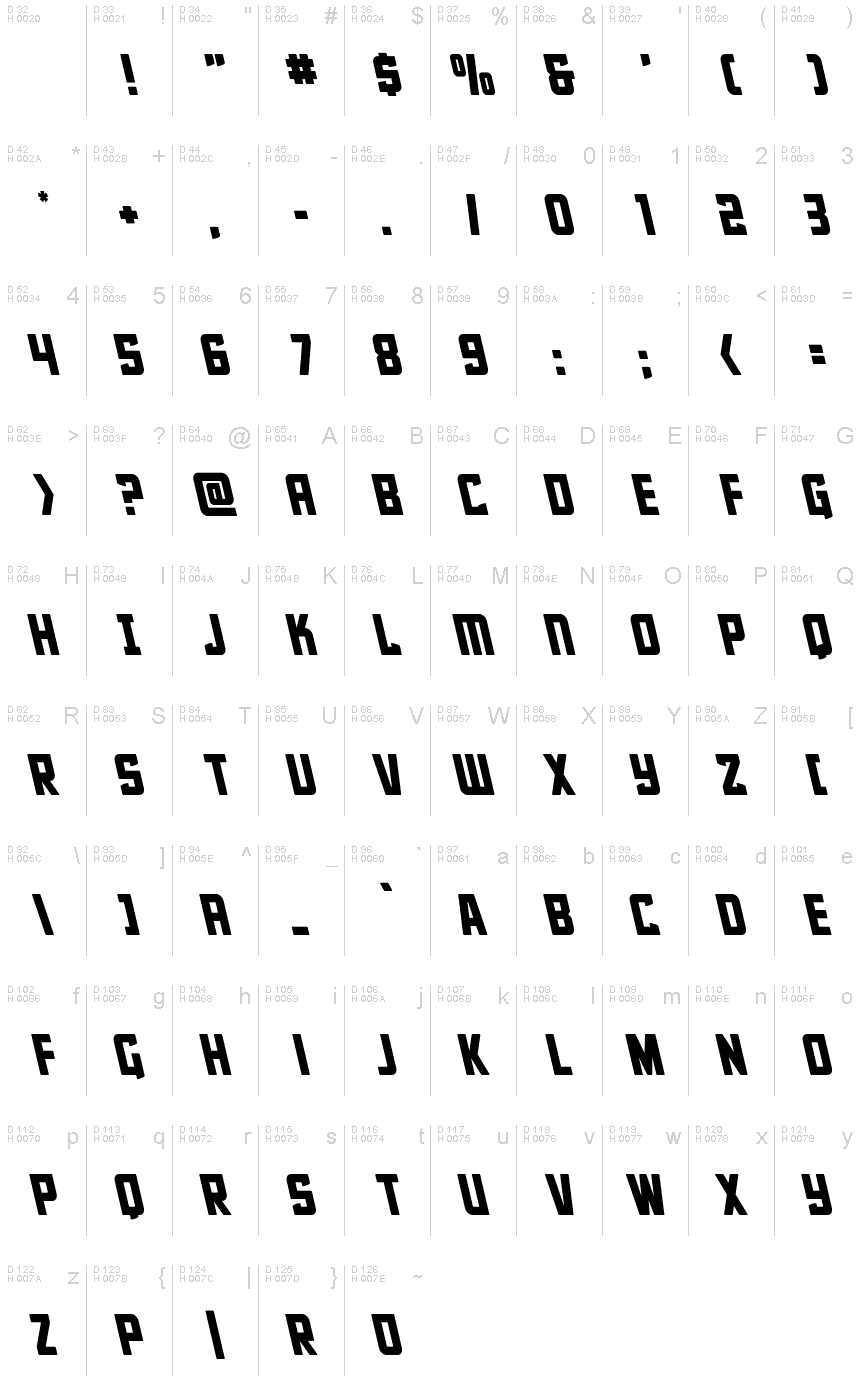
Phantom Storm Semi-Leftalic
Phantom Storm Semi-Leftalic is a bold and condensed display font that exudes a futuristic and techno vibe. Designed by Iconian Fonts, this font family is perfect for projects that require a cutting-edge look, such as tech magazines, video game titles, or even sci-fi movies. Its semi-leftalic style adds a unique touch to any design, making it stand out from the crowd. Whether you're working on a website header or an advertising campaign, Phantom Storm Semi-Leftalic is guaranteed to capture attention and create an impact. Get ready to make your project stand out with this innovative typeface!